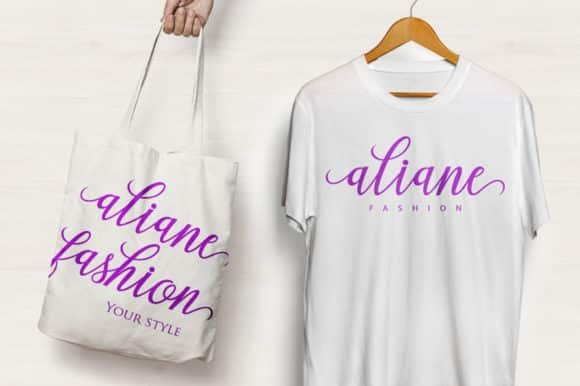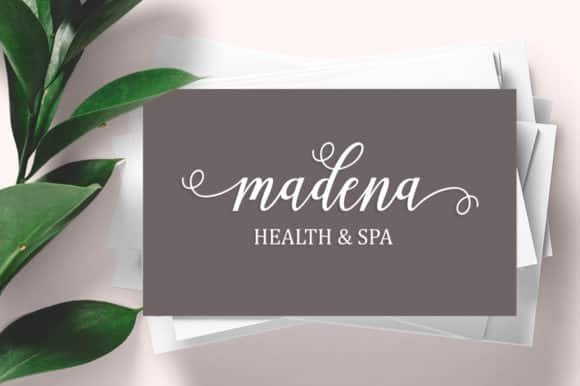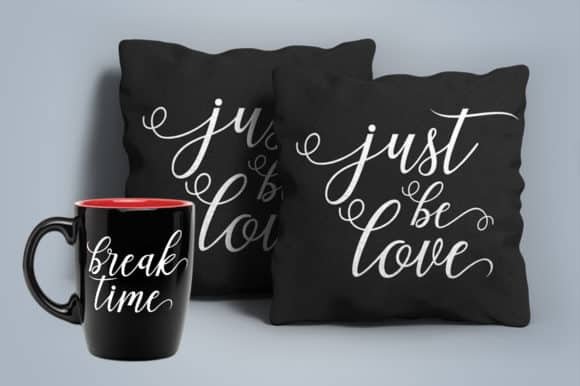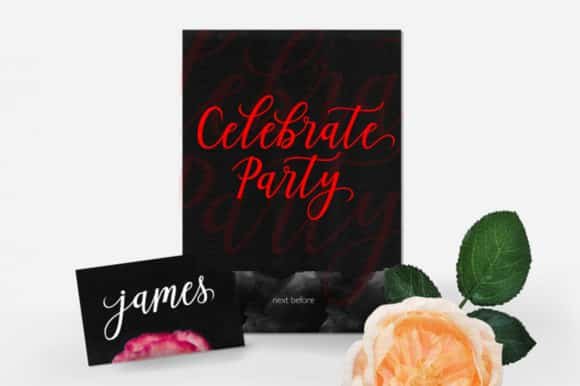
Aseline Font
The Aseline is a modern script font. Every letter has been carefully crafted to make your text look beautiful with an elongated connection model.